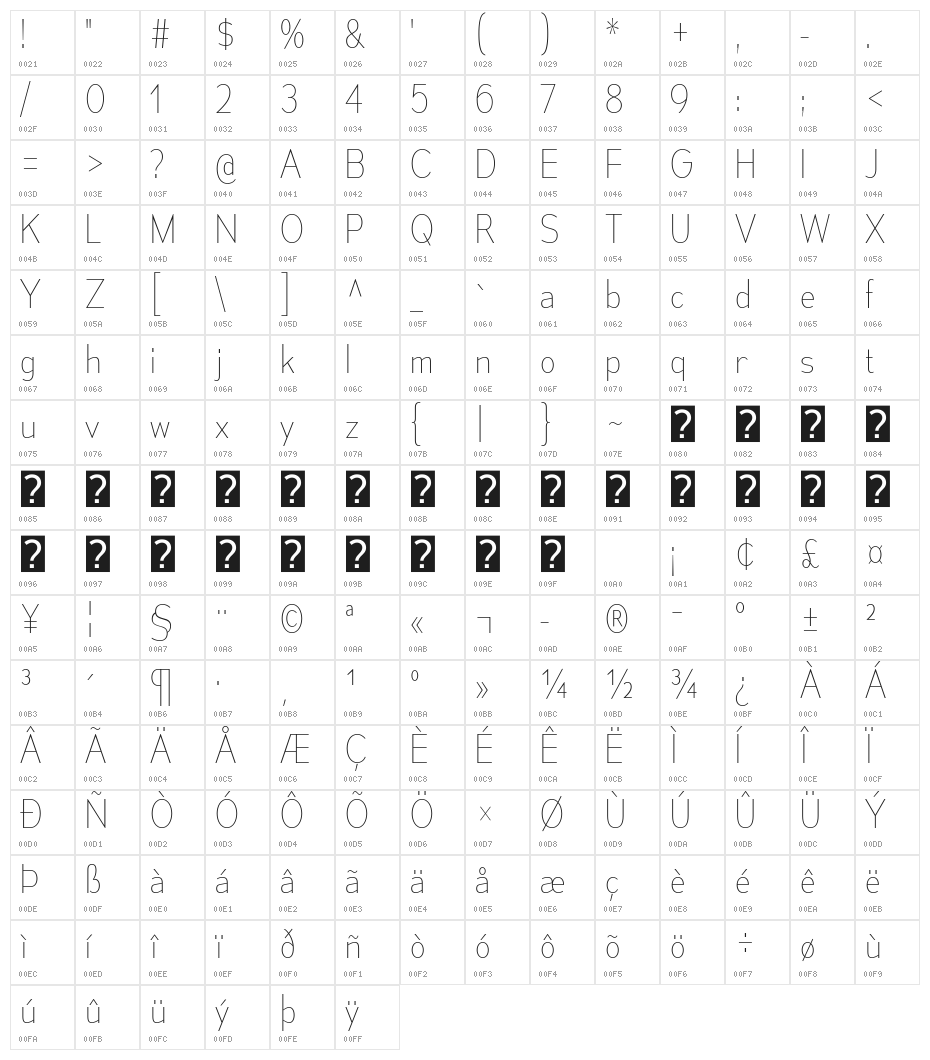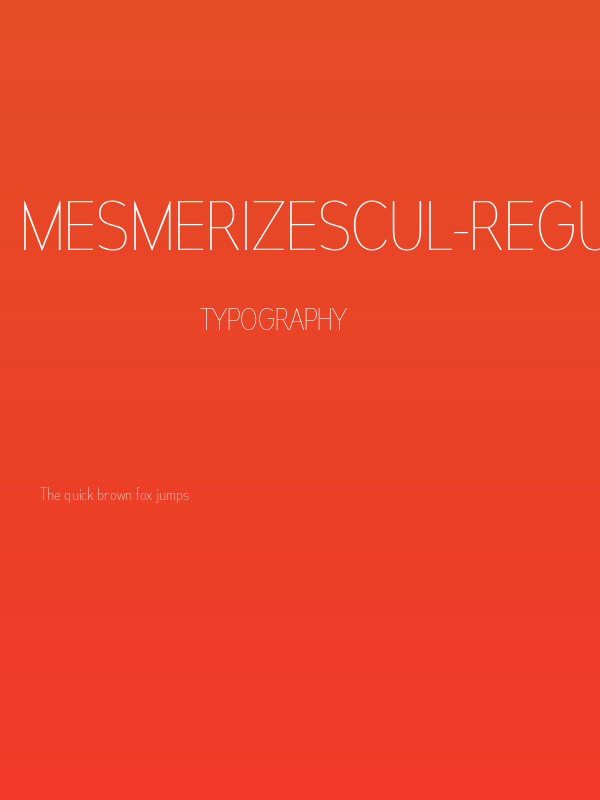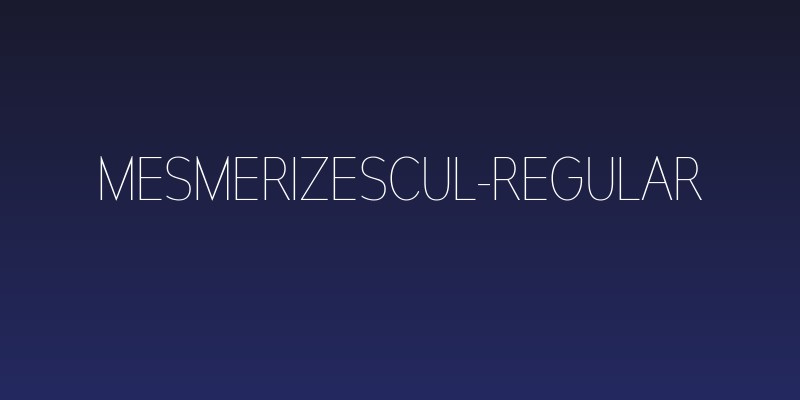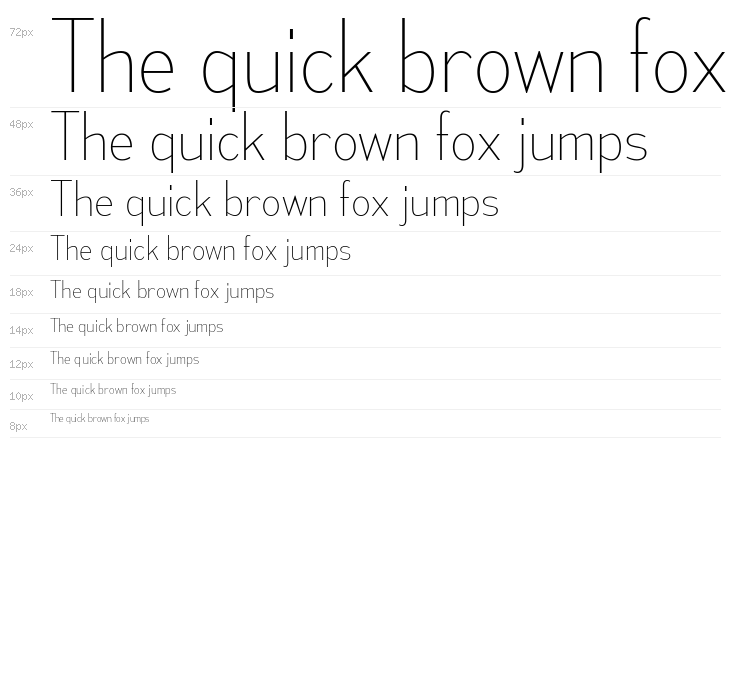
MesmerizeScUl-Regular Font
MesmerizeScUl-Regular Description
This font features a clean and modern sans-serif design with a sleek, minimalist aesthetic. The characters are evenly spaced with a consistent stroke width, giving it a uniform appearance. The uppercase letters are tall and elegant, while the lowercase letters maintain a balanced and harmonious look. The numerals are clear and legible, making them suitable for various applications. Special characters are well-defined, adding to the font's versatility. Its simplicity and clarity make it ideal for contemporary design projects.
| Proposed Projects | Ideal for branding, web design, editorial layouts, and corporate materials. |